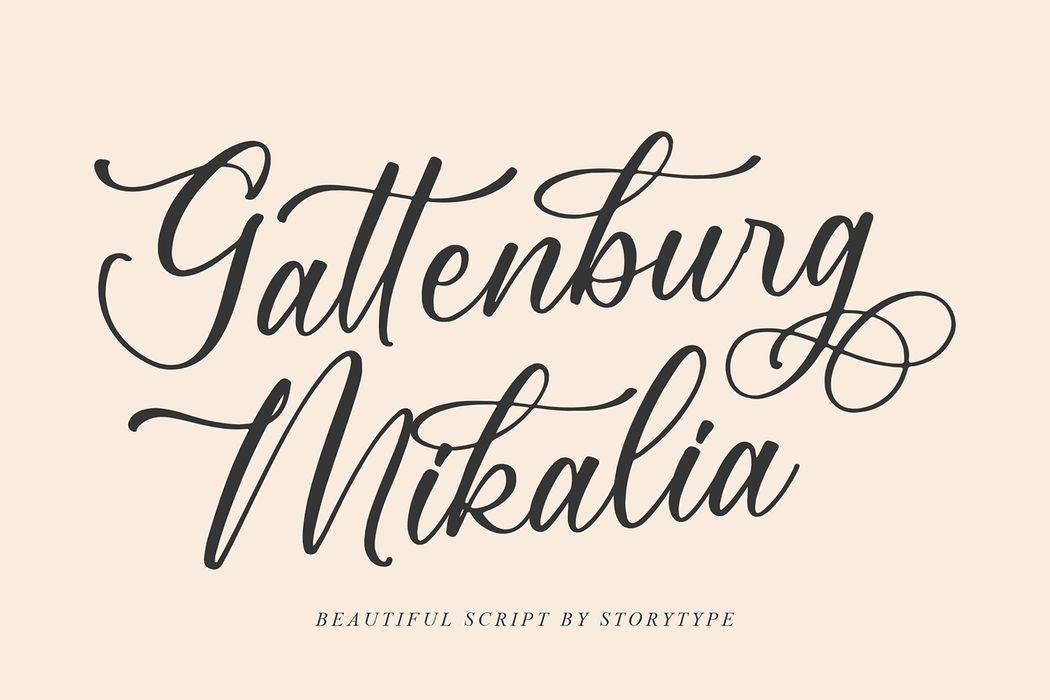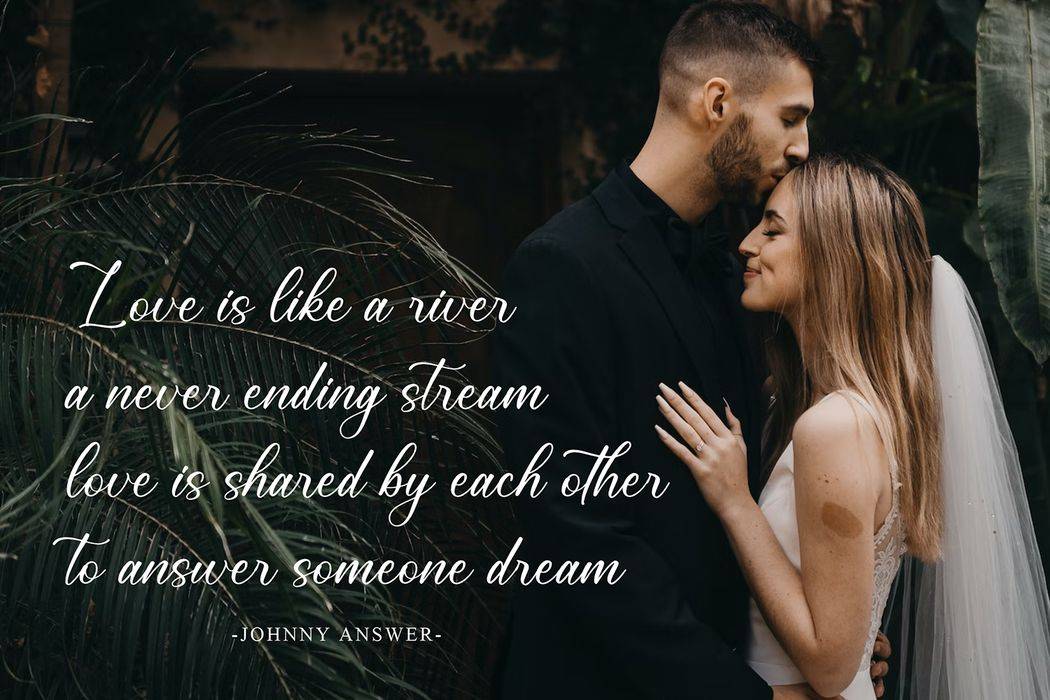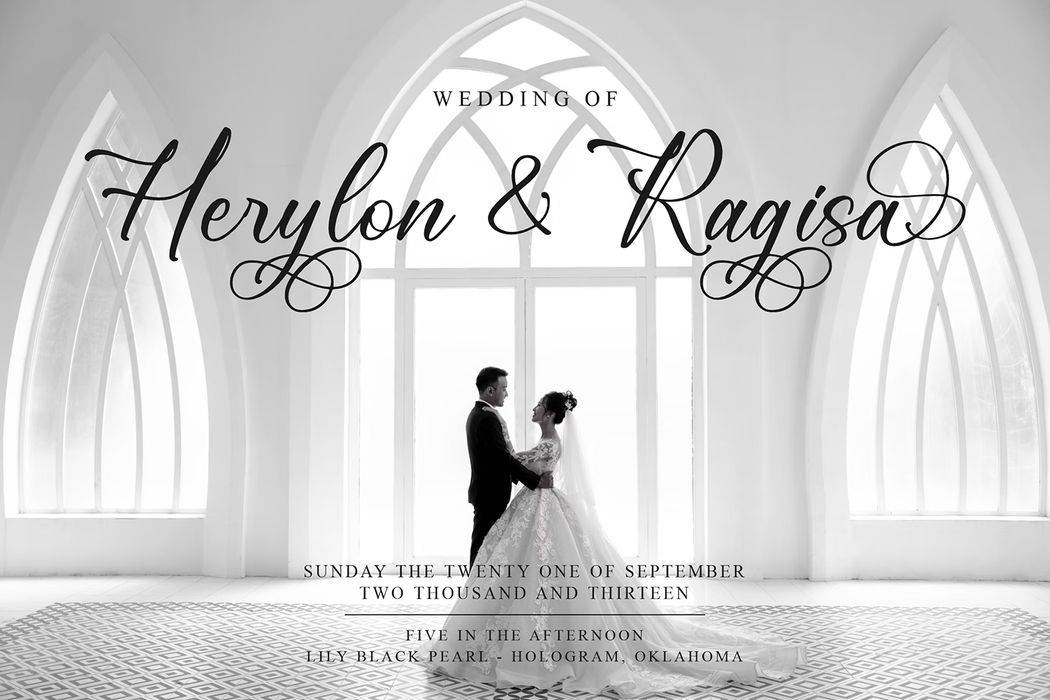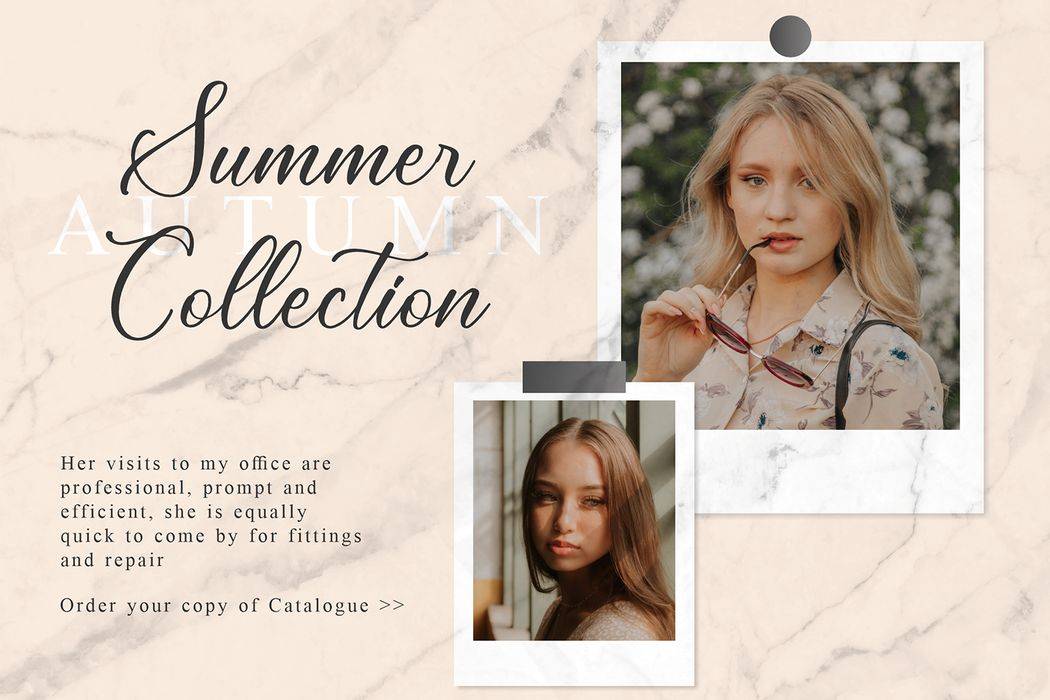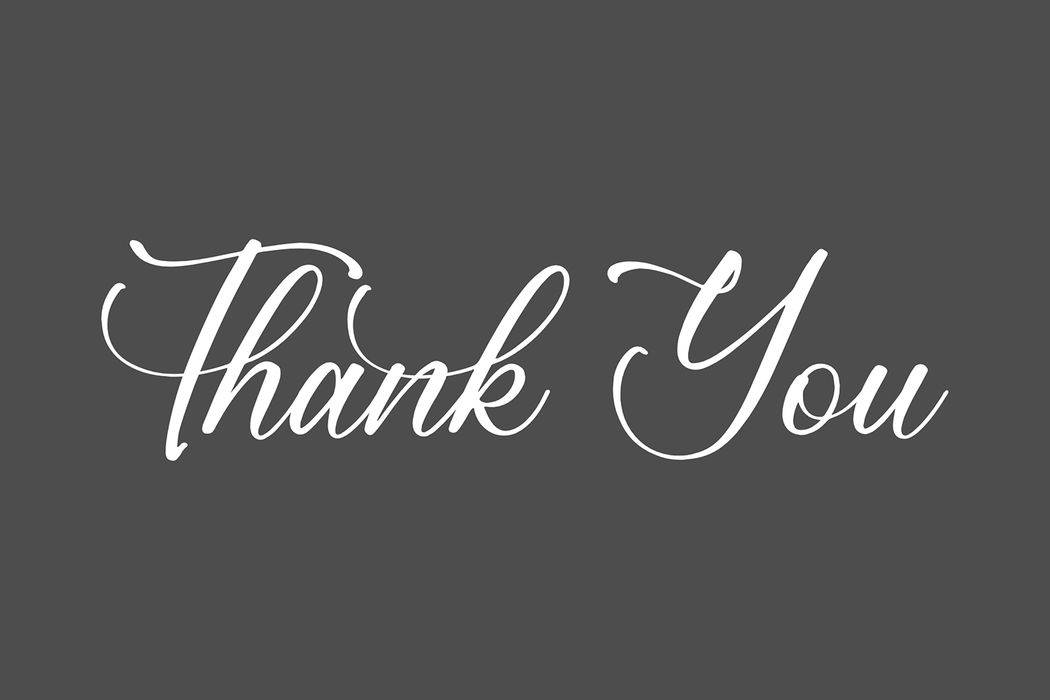
Gattenburg Mikalia is an elegant script font with a delicate, flowing style that mimics sophisticated handwriting. Its thin strokes and graceful letterforms convey a refined and romantic mood, making it ideal for invitations, luxury branding, and feminine design projects where a touch of charm and elegance is desired. This font shines in large display uses like logos and headlines, where its intricate details can be fully appreciated.